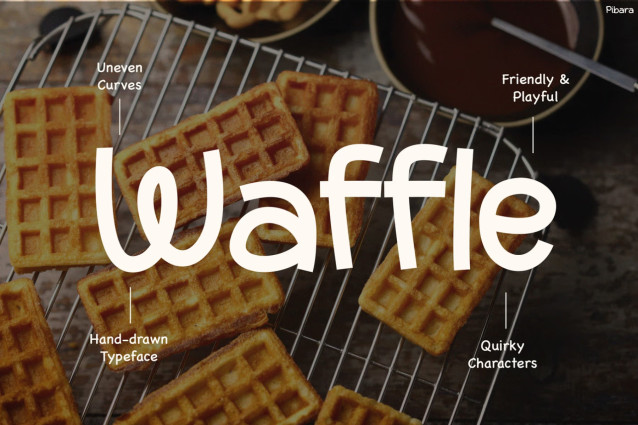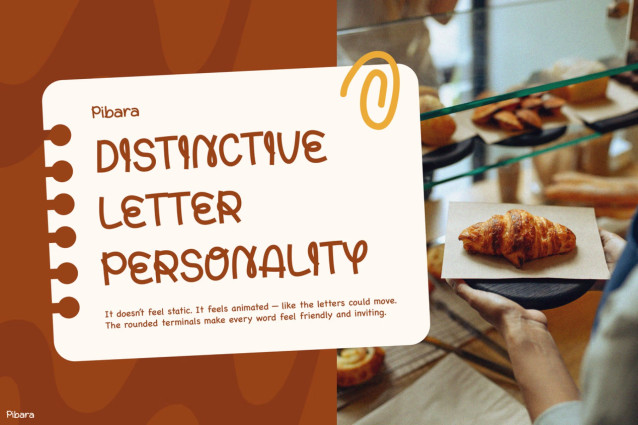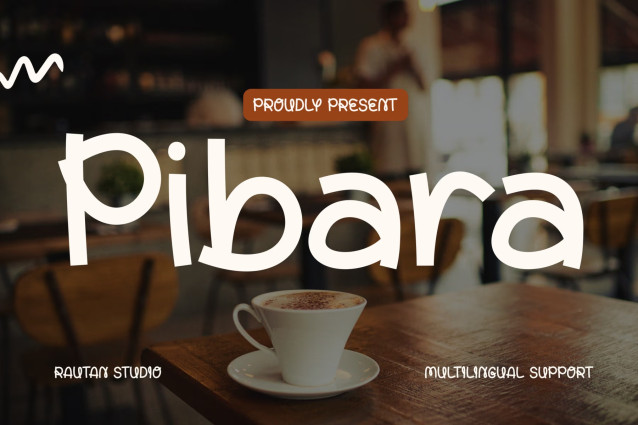
Pibara Font
Pibara Font is a playful, hand-drawn display font with soft, rounded letters and slightly uneven curves that give it a warm, human personality. Its quirky, organic shapes and subtle variations in alignment create an expressive, informal look that feels distinctly hand-shaped rather than mechanical.
Best suited to food and beverage branding, cafe menus, bakery packaging, kids’ book covers, and casual social media posts. The bold stroke weight ensures excellent legibility at display sizes, making it a natural fit for signage, event banners, and product labels where a friendly, inviting tone is needed.